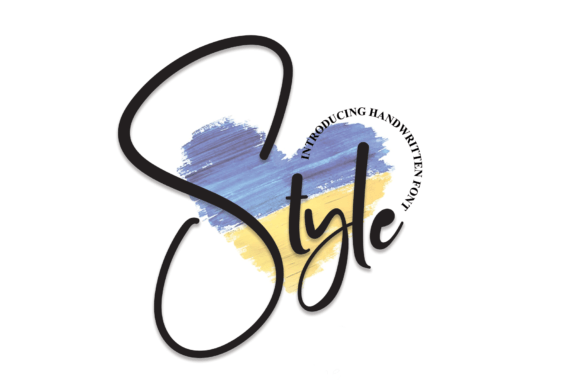
About Style Handwritten Font
Style Handwritten Font is an elegant script typeface created to bring sophistication and warmth to your projects. With graceful strokes and a balanced structure, it combines the charm of handwritten calligraphy with the versatility required for modern design. Because of its adaptability, Style Handwritten Font is perfect for wall displays, invitations, logos, product packaging, labels, photography, and stationery.
A Handwritten Typeface for Modern Elegance
Handwritten fonts add character to design, and Style Handwritten Font captures this perfectly. Its flowing lines and neat rhythm provide an authentic touch, making it suitable for both formal and casual projects. In addition, the clean proportions ensure readability while still maintaining artistic beauty.
Special occasions deserve memorable designs, and Style Handwritten Font is an excellent choice. For example, it enhances wedding invitations, thank-you notes, and menus with a graceful look. Moreover, it works beautifully on seasonal greetings, birthday cards, and holiday stationery, adding elegance to every detail.
A Script Typeface for Branding and Packaging
Businesses and creatives can benefit greatly from Style HandwrittenFont in branding. It enriches logos, boutique packaging, and promotional materials with sophistication. Furthermore, it adapts seamlessly to advertising, magazine layouts, and social media graphics. When paired with minimal sans serif fonts, it produces a professional and stylish balance.
Flexible Across Print and Digital Media
Another strength of Style HandwrittenFont is its flexibility across mediums. In print, it shines on posters, brochures, and merchandise. Digitally, it integrates perfectly into websites, blogs, and online shops. Since it maintains clarity across all sizes, it delivers consistent quality from small icons to large banners.